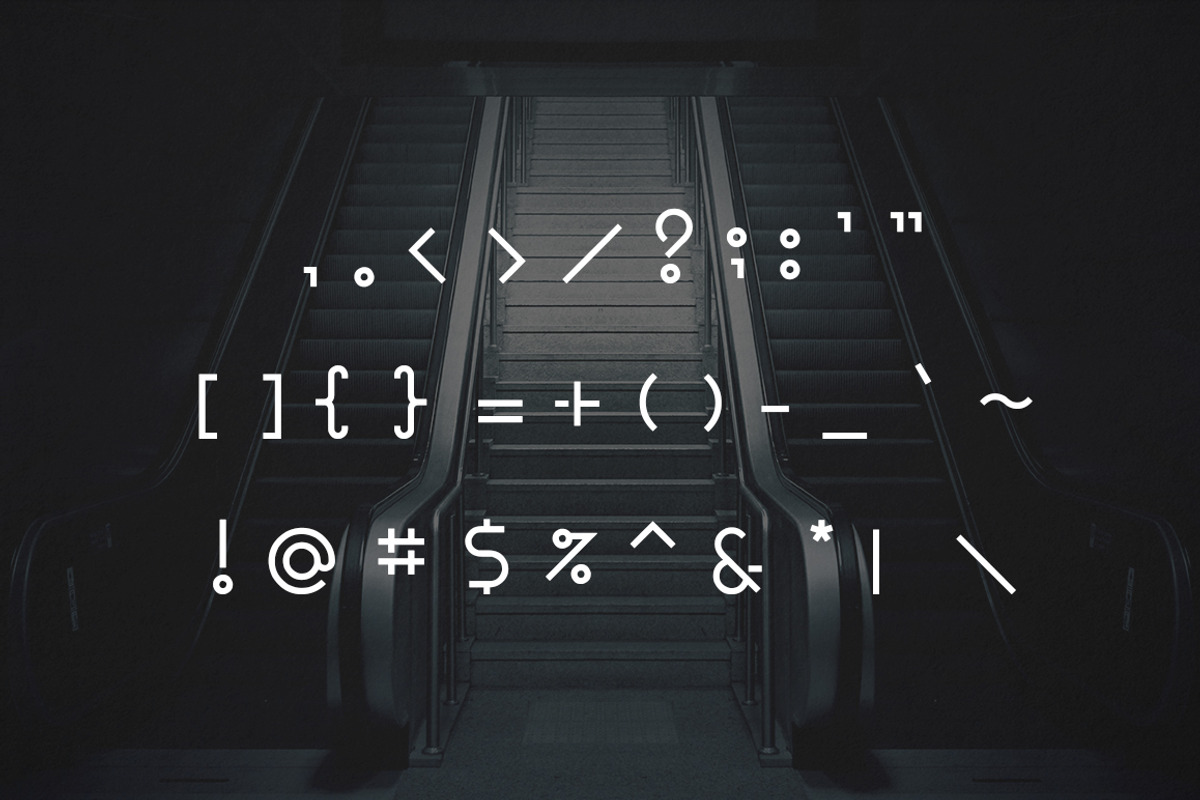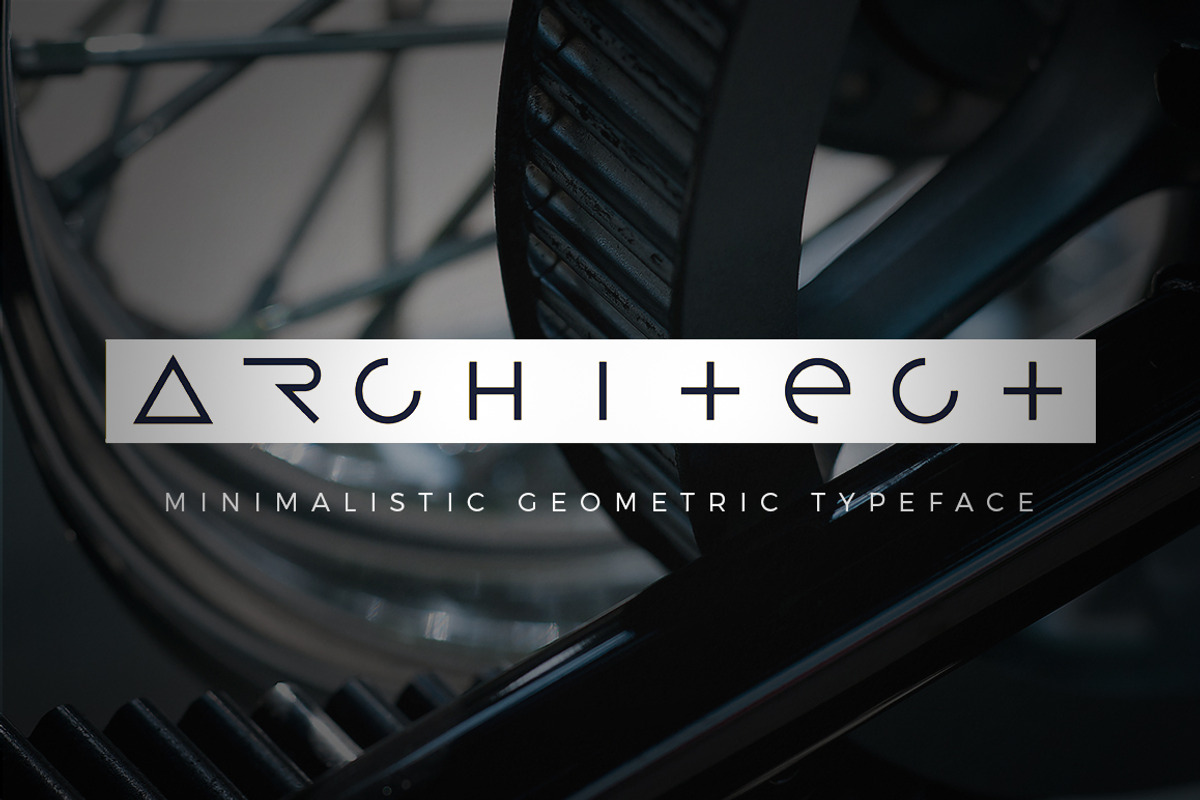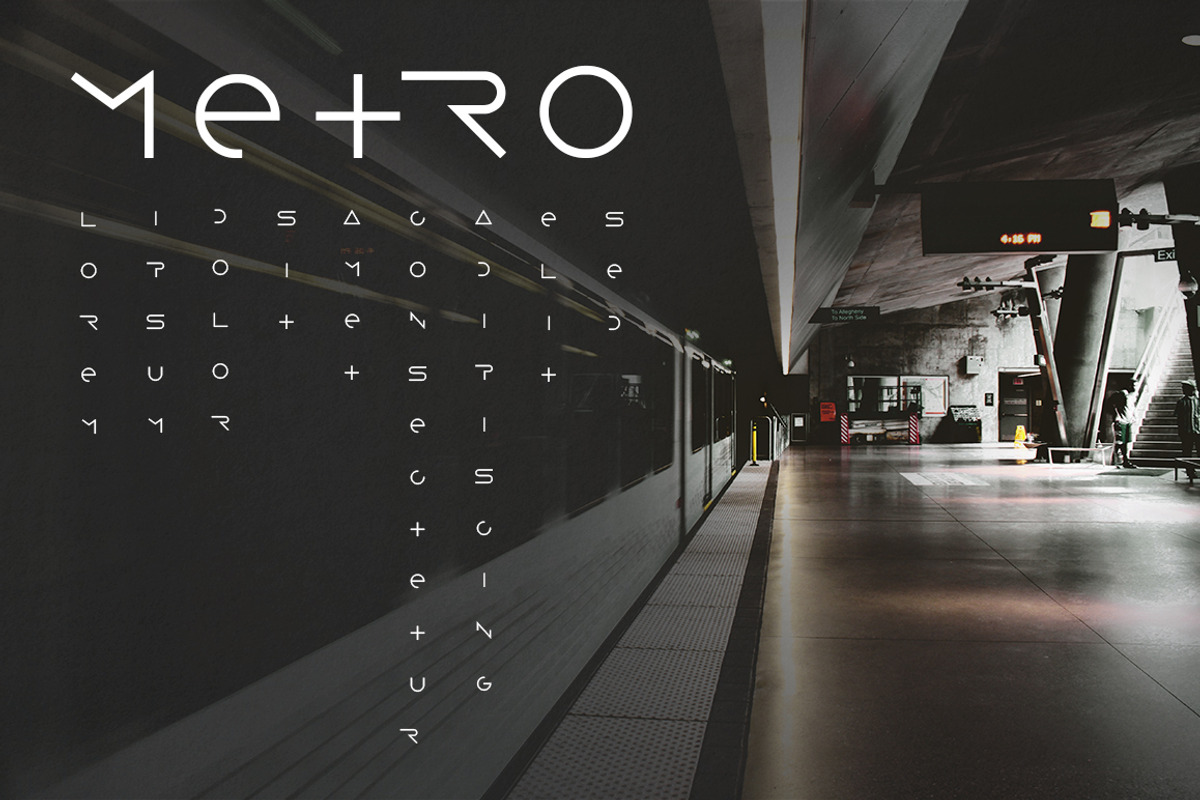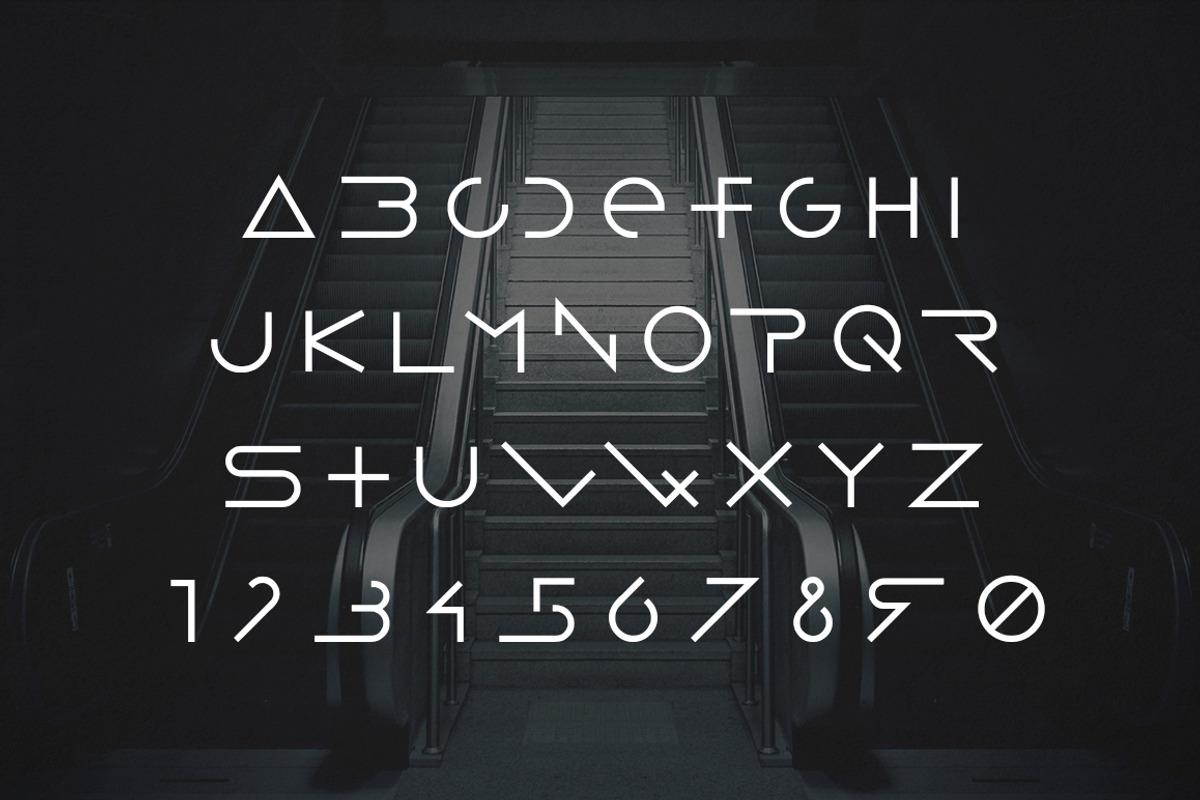
Architect sans serif font
Architect sans serif font by Magda is a font selected for branding, posters, packaging, typography.
Why Architect sans serif font is worth a look
Architect sans serif font by Magda fits naturally into Branding, posters, packaging, typography.